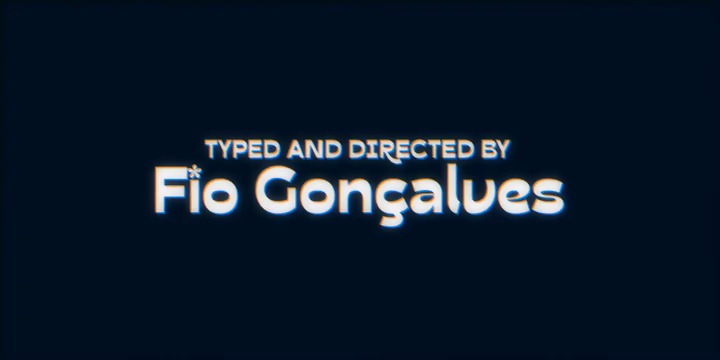
Acarau Display Font
It’s a western display typeface. The reverse contrast make this font looks different and stand out from the crowd—since from Roman capitals and calligraphy, usually Latin alphabet letters have thiner horizontal steams and thicker verticals, these features being optical or visual—quite adequate for logos, headlines and posters.
Moreover, the style of the typeface is inspired by Italics form factor: lowercase letters having less strokes to make their shapes; A has one story; E has one stroke shape, such as K, G, Y and Z; F has a descent.
To give it more calligraphic feeling, there is contrast for uppercases as well, this is very perceived by the diagonal letters like A, K, M, N, V, W, X, Y and Z. J also has a descent. Q and R have natural swashes, but they have alternates in case the costumer want to go for more usual forms—including accent marked letters.
Acarau is a 12 months project, the contrast for uppercases were increasing as the process was made. In the middle it is found suitable blend the letter shapes with the history of Brazilian music from the 70’s and 80’s, since the font has a tropical, warm, spicy and nostalgic feeling. Songs from bands and singers that emerged on Rio de Janeiro like Paralamas do Sucesso, Cazuza, Lulu Santos and Kid Abelha bring the beach accent and rhythm that this font has.